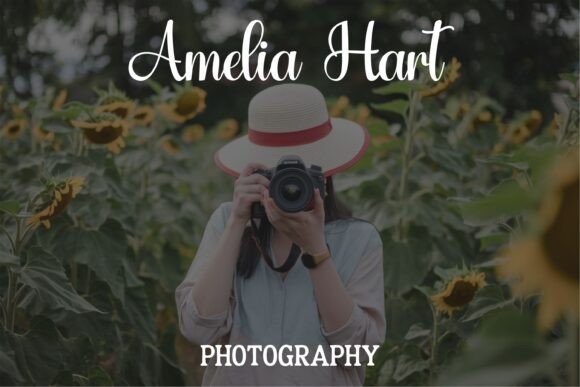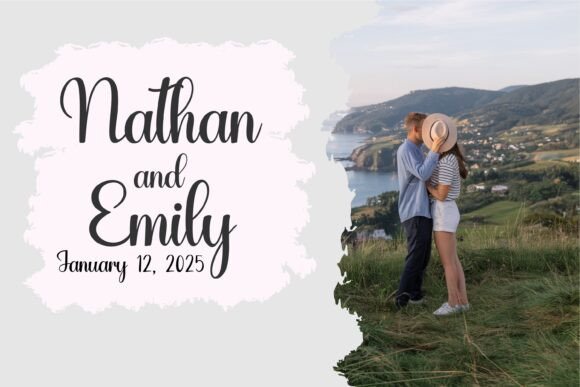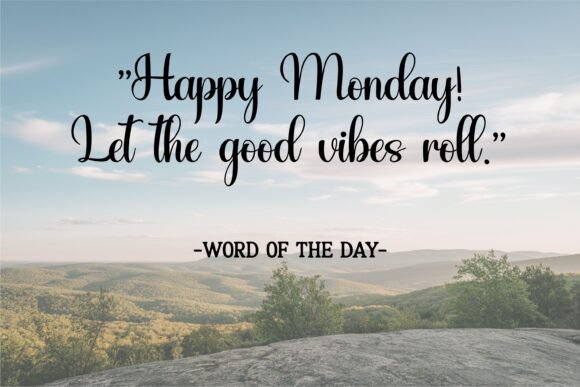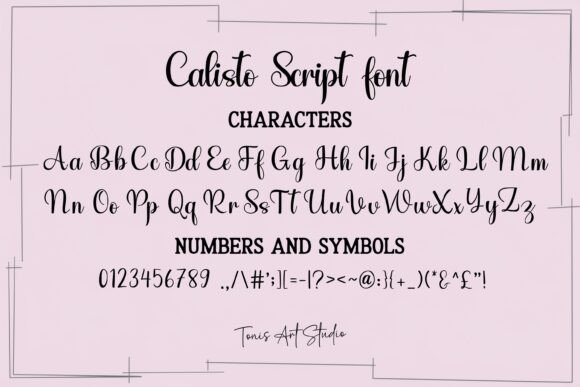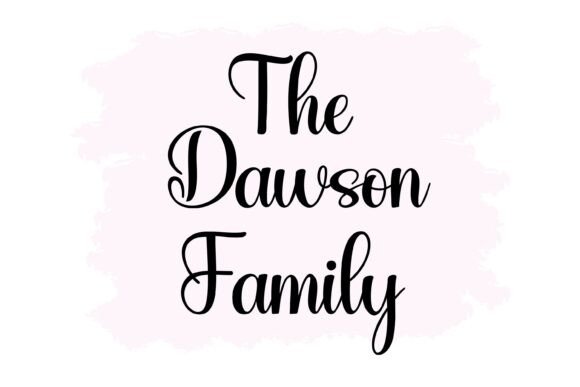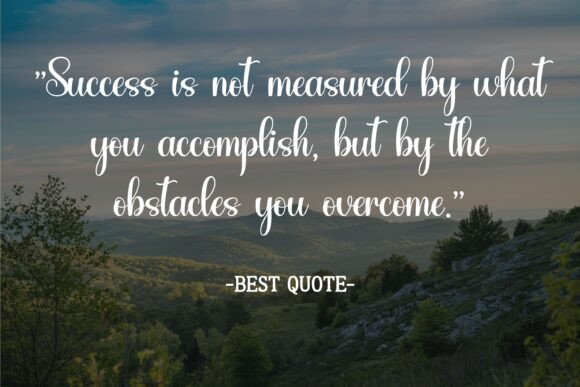
Introducing Calisto Font: Elevate Your Designs with Elegance and Sophistication
In the world of typography, few fonts manage to convey luxury, elegance, and refinement as effortlessly as Calisto. This sophisticated script font is designed to add a touch of high-end style to any design project, making it a versatile and valuable addition to any creative’s toolkit. With its elegant, flowing lines and refined handwritten style, Calisto is perfect for a wide range of applications, from invitations and branding to social media graphics, logos, and greeting cards.
The Characteristics of Calisto Font
Calisto’s beauty lies in its smooth curves and graceful flourishes, which set it apart as a premium choice for designers and crafters seeking a timeless, high-quality font. The font’s classic, cursive style exudes a sense of sophistication and refinement, making it ideal for projects where a touch of luxury is desired. Whether you’re creating wedding invitations, branding materials, or social media graphics, Calisto’s elegant lines and refined aesthetic are sure to impress.
One of the standout features of Calisto is its versatility. This font is designed to be used across a wide range of applications, including:
- Invitations: Add a touch of elegance to wedding invitations, baby shower cards, and other special occasion stationery.
- Branding: Use Calisto to create sophisticated logos, business cards, and marketing materials that reflect your brand’s high-end aesthetic.
- Social Media Graphics: Elevate your social media presence with stylish graphics, headers, and posts that showcase Calisto’s refined beauty.
- Logos: Create memorable, high-end logos that set your brand apart from the competition.
- Greeting Cards: Add a touch of luxury to birthday cards, holiday cards, and other special occasion greetings.
Why Choose Calisto?
So why choose Calisto over other script fonts? Here are just a few reasons why Calisto stands out:
- Timeless Elegance: Calisto’s classic, cursive style ensures that your designs will remain timeless and sophisticated, even as trends come and go.
- High-Quality Design: Calisto is designed with precision and attention to detail, resulting in a font that is both beautiful and functional.
- Easy to Use: With its simple, intuitive design, Calisto is easy to use, even for designers and crafters with limited typography experience.
- Versatile: Calisto can be used across a wide range of applications, making it a valuable addition to any designer’s toolkit.
In conclusion, Calisto is a sophisticated script font that offers a unique combination of elegance, refinement, and versatility. With its smooth curves, graceful flourishes, and timeless aesthetic, Calisto is perfect for designers and crafters seeking to add a touch of luxury to their projects. Whether you’re creating invitations, branding materials, or social media graphics, Calisto is sure to elevate your designs and leave a lasting impression. So why wait? Download Calisto today and experience the power of premium typography for yourself.